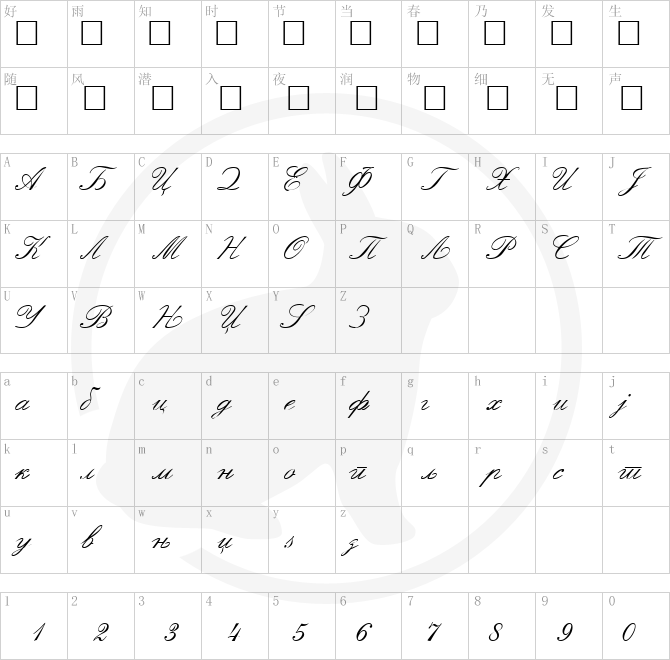
- Font Name:Macedonian Handwriting
Macedonian-Handwriting.ttf is a very beautiful artistic font, Macedonian-Handwriting.ttf is widely used in the design and printing of various books and pictures,Macedonian-Handwriting.ttf has a strong visual impact,Macedonian-Handwriting.ttf is a commonly used font in newspapers, magazines and books, and is used in posters, e-commerce Poster design, store design, logo design, font design and other fields.Macedonian-Handwriting.